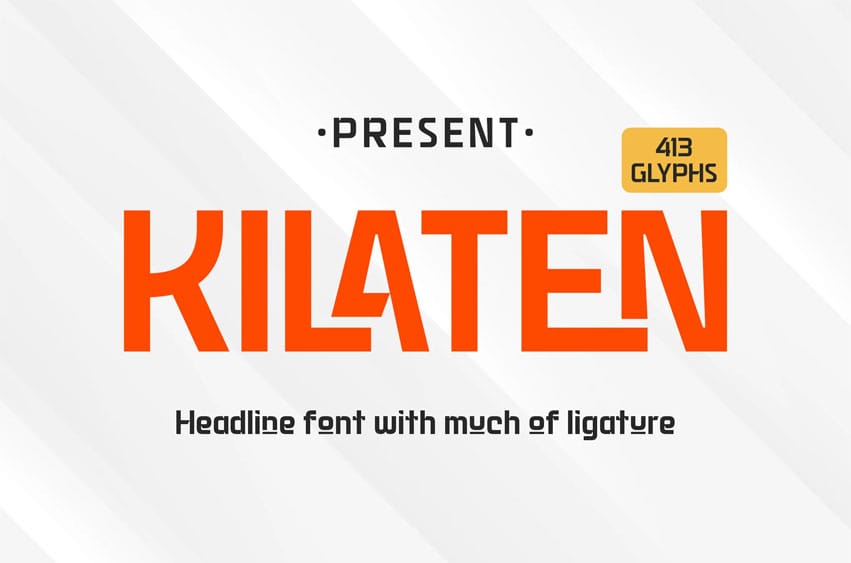
Kilaten Font, inspired by modern typographic trends, is a bold typeface designed to make a statement. With its strong, confident letterforms, Kilaten is perfect for commanding headlines, striking branding projects, and posters that demand attention. Its compact and refined design allows you to communicate power and clarity without overwhelming the layout.
- 21 Alternate characters & 18 Ligatures